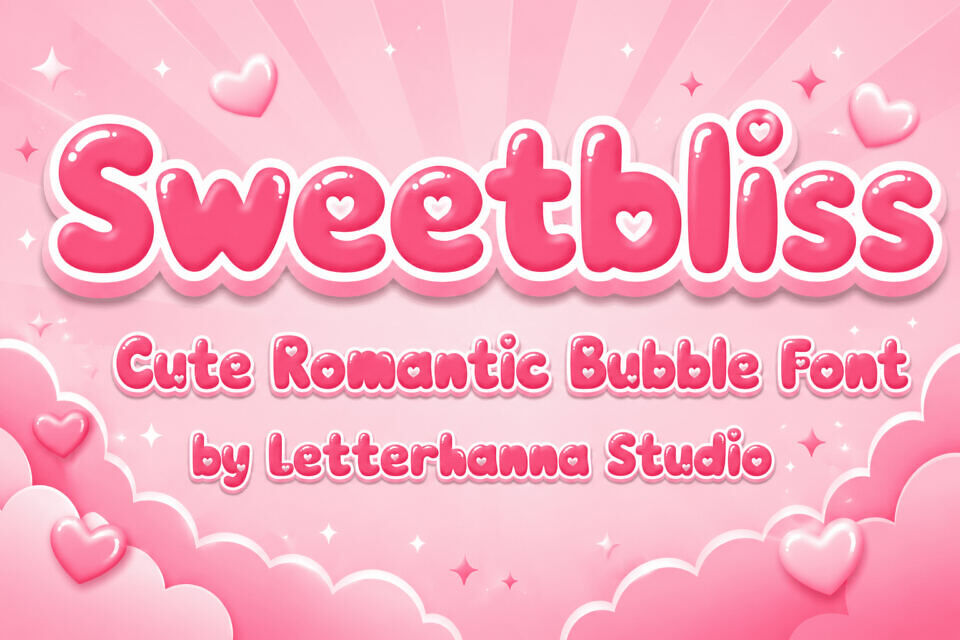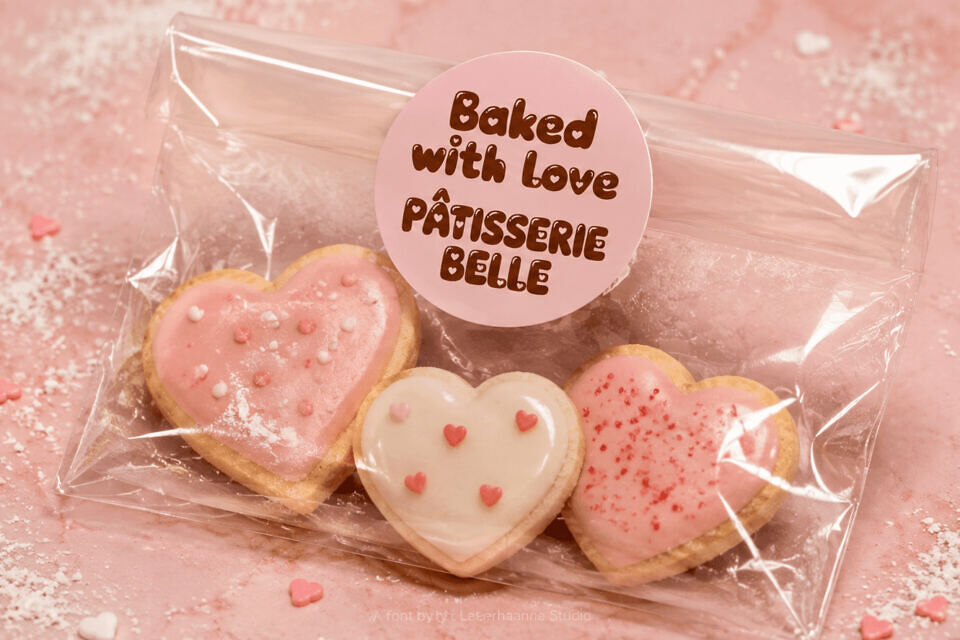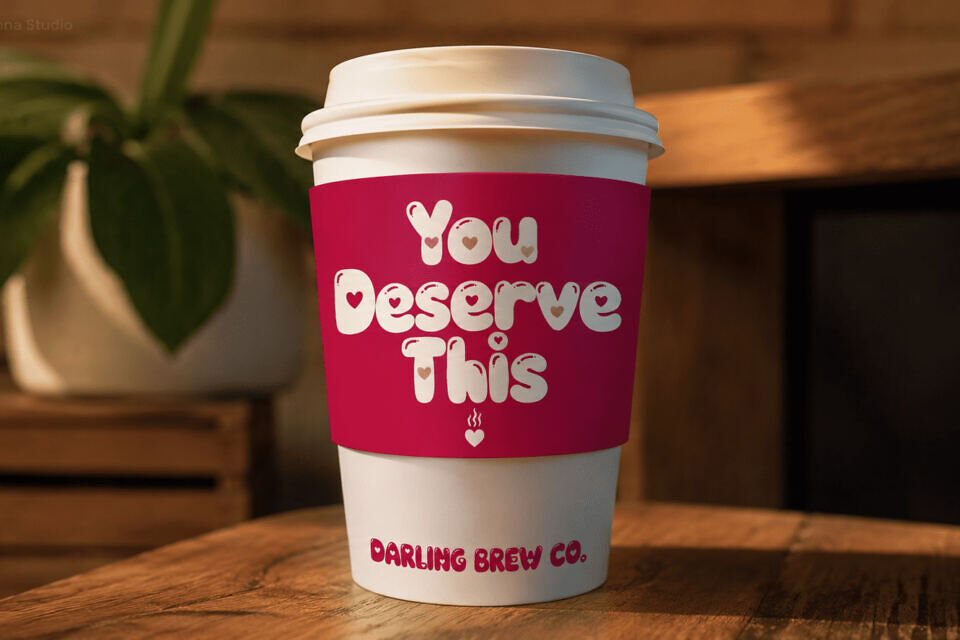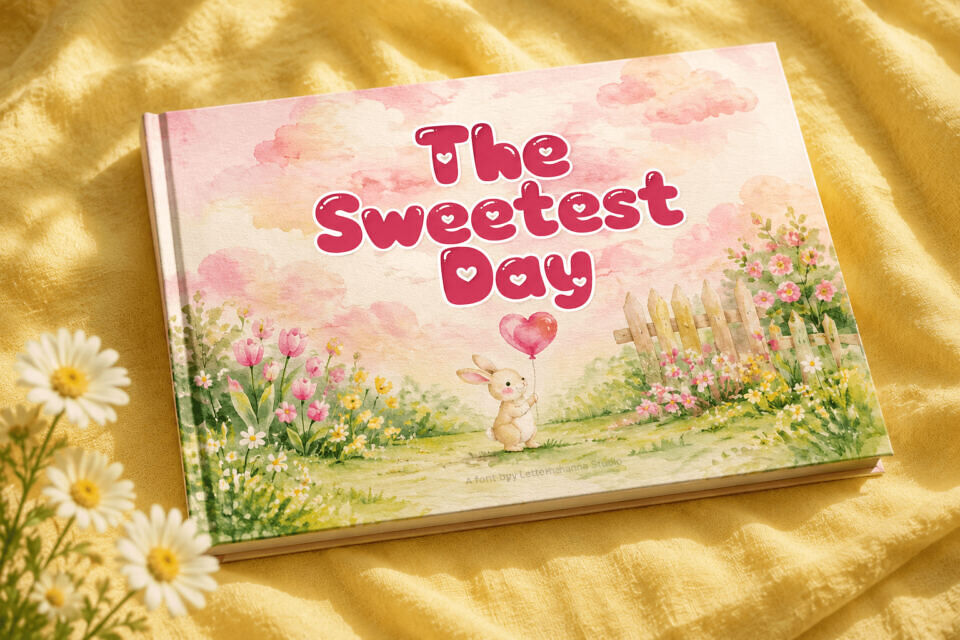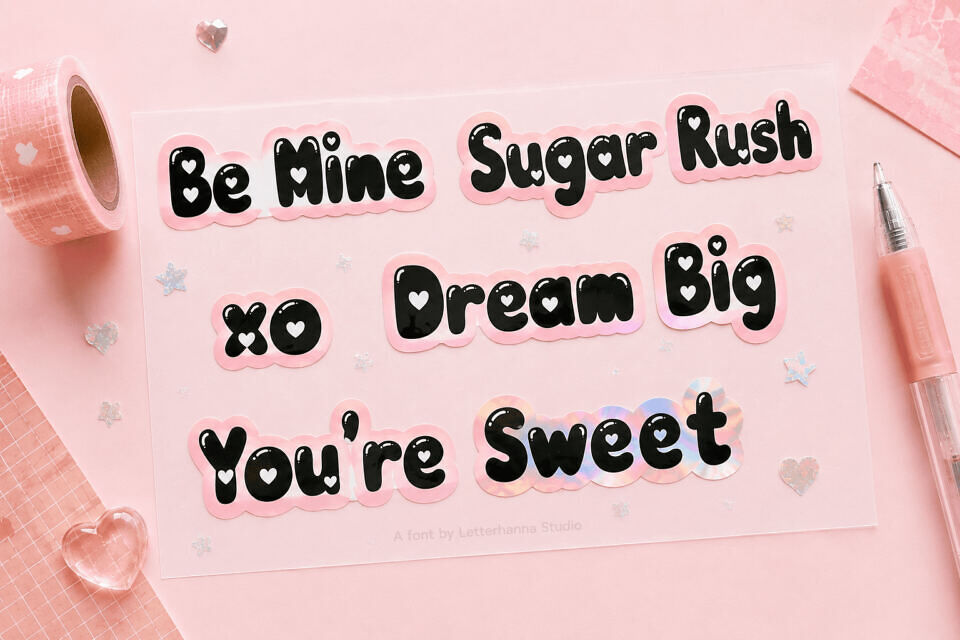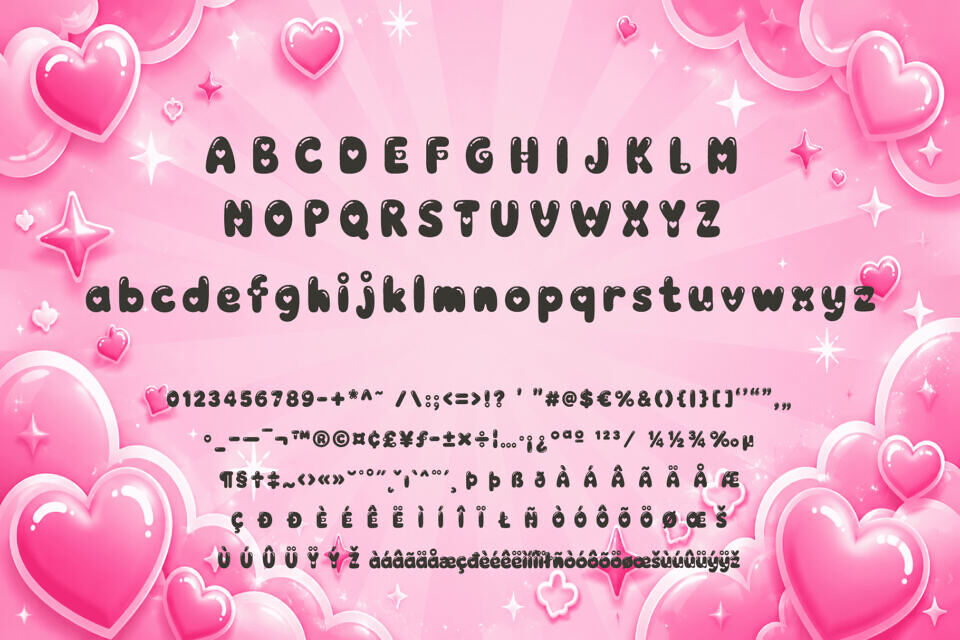
Imagine a font that evokes emotions the moment it’s read. Sweetbliss is a heartfelt font, born from a simple idea: to create letters that feel like a warm hug. With its soft, pillowy curves and hidden heart cutouts, Sweetbliss communicates more than just words – it conveys emotion.
Perfect for designs that require a touch of warmth, this font is ideal for weddings, celebrations, and self-care brands, making it a great choice for creators who want to add a personal touch to their work.